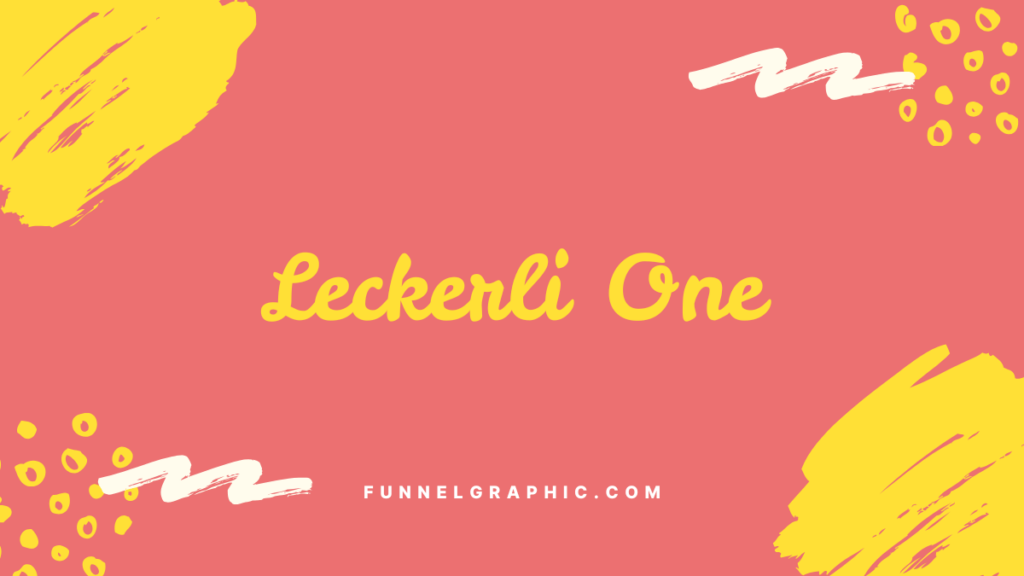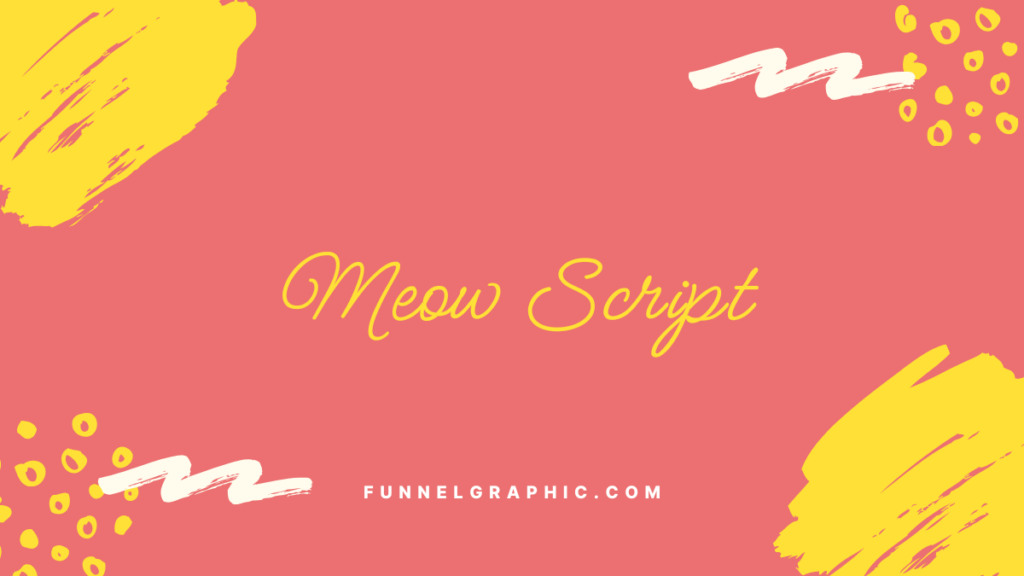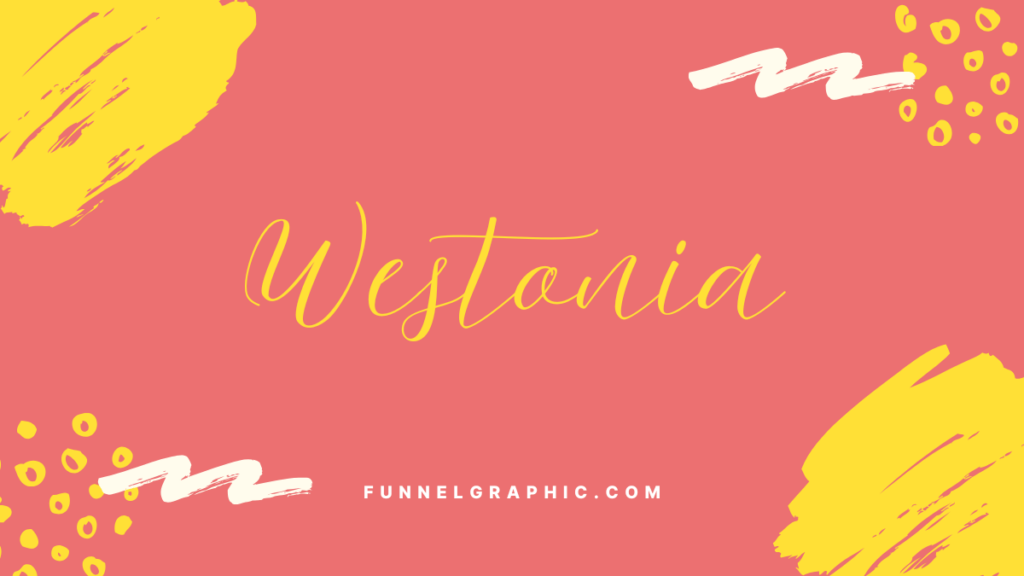
20 Alternative Disney Fonts On Canva For Free
Are you looking for the perfect Disney font on Canva? There aren’t any, but if you are subscribed to Canva Pro, you can download fonts that are similar to the Disney font and upload them to use on Canva.
There are two types so far, one is called “Waltograph” and the other is called “Walt Disney Script“.
You can also search and grab Disney-lookalike fonts, download them and upload custom fonts to Canva to use.
But if you prefer to stick with the free plan on Canva, stay with me, this guide gives you the best Disney-looking fonts you can find on Canva.
Canva Disney Font Alternatives
1. Adlery Swash
Adlery Swash - Diney font on canva
Adlery Swash dances on the page with its lively swashes and playful loops, reminiscent of the carefree joy found in Disney’s animated tales.
Its distinct flair adds a touch of personalized whimsy, perfect for projects aiming to convey fun and adventure.
2. Amsterdam One
Amsterdam One - Disney font on canva
Amsterdam One offers a more refined, yet equally whimsical approach, with elegant curves and a modern twist.
Its sophisticated style suits fairy tale wedding invitations or upscale event announcements, where a hint of magic is desired without sacrificing elegance.
3. Apricots
Apricots - Disney font on canva
Apricots bursts with a friendly and inviting character, its rounded edges and soft shapes evoke the warmth and charm of Disney’s beloved characters.
Ideal for children’s party invitations or playful branding, it brings a smile with its gentle demeanor.
4. Bellaboo
Bellaboo - Disney font on canva
Bellaboo, bold and straightforward, captures the essence of fun in a more modern and simplified manner.
Its thick lines and rounded forms are perfect for eye-catching headlines that need to convey energy and youthfulness, making it a great choice for casual, lively designs.
5. Better Together Script
Better Together Script - Disney font on canva
Better Together Script flows gracefully, reminiscent of the hand-written notes of a Disney princess.
Its delicate and fluid script embodies romance and dreams, perfect for storytelling, inspirational quotes, or any project that aims to touch the heart with soft elegance.
6. Bright Sunshine
Bright Sunshine - Disney font on canva
Bright Sunshine is like a cheerful greeting on a sunny day, its casual and lively script imbued with a sense of joy and optimism.
This font is perfect for designs that aim to be heartwarming and inviting, with a font that looks like handwriting that feels personal and uplifting.
7. Daydream
Daydream - Disney font on canva
Daydream captures the whimsy of a lazy afternoon, lost in fantasy. With its soft, flowing curves and dreamy elegance, it’s ideal for projects that require a touch of romance and whimsy.
This font is a gateway to stories untold, evoking the gentle allure of fairy tales and adventures waiting to be discovered.
8. Gistesy
Gistesy - Disney font on canva
Gistesy stands out with its quirky and fun character, embodying the unpredictable and spirited side of magic. It’s easy to find fonts to pair with Gistesy in Canva.
Its unique letterforms are perfect for projects that aim to be bold and stand out, making it a great choice for creative branding, playful invitations, or any design that dares to be different.
9. Imperfect
Imperfect - Disney font on canva
Imperfect celebrates the beauty of handcrafted artistry, with each stroke and curve revealing a human touch.
This font resonates with the authenticity and warmth of Disney’s classic animations, making it perfect for projects that seek to convey genuine emotion and a sense of nostalgia.
10. Jimmy Script
Jimmy Script - Disney font on canva
Jimmy Script brings together elegance and playfulness, its smooth script reminiscent of the carefree loops and swirls of a magic wand.
Ideal for projects that need a balance of sophistication and whimsy, Jimmy Script is suited for everything from enchanting event invitations to stylish branding.
11. Lavonia Classy
Lavonia Classy - Disney font on canva
Lavonia Classy exudes an elegance that’s both refined and enchanting. Its sophisticated curves and subtle swashes whisper tales of timeless fairy tales and grand adventures.
Perfect for projects that aim to blend classic charm with a hint of mystery, Lavonia Classy brings a touch of regal magic to invitations, branding, and more.
12. Leckerli One
Leckerli One - Disney font on canva
Leckerli One is a bouncy and sweet font. It mimics Disney’s iconic lettering with its rounded, playful curves.
This font feels like a joyful hand-drawn script—perfect for evoking childlike wonder in birthday invites, bakery logos, or anything that needs a sprinkle of magic (without the trademark).
13. Meow Script
Meow Script - Disney font on canva
Meow Script is elegant yet approachable. It offers flowing cursive swashes that channel Disney’s romantic charm.
Its balanced mix of sophistication and whimsy makes it ideal for invitations, fairy tale-themed designs, or projects craving a touch of timeless enchantment.
14. Mistrully
Mistrully - Disney font on canva
Mistrully embodies a playful mischief, with letterforms that dance with irregularity and charm. Its hand-drawn appearance captures the essence of whimsical tales and spirited characters.
Ideal for creative projects that seek to invoke curiosity and joy, Mistrully adds a personal, artisanal touch to storybooks, merchandise, and playful branding.
15. Moontime
Moontime - Disney font on canva
Moontime floats in with the dreamy allure of a moonlit night, its smooth script suggesting secrets whispered under a starry sky.
This font is perfect for narratives filled with romance, magic, and mystery, offering a delicate balance between readability and artistic flair.
Related: Moontime Font Pairing Ideas: 9 Free Canva Templates
Moontime lends itself beautifully to poetic quotes, romantic invitations, and any design aiming to stir the soul.
16. Themysion
Themysion - Disney font on canva
Themysion stands tall and proud, its bold and adventurous spirit reminiscent of epic journeys and heroic tales.
With sturdy letterforms that command attention, this font is a beacon for designs that aim to inspire, motivate, and captivate.
Themysion is especially suited for impactful headlines, motivational posters, and any project that calls for a dose of courage and wonder.
17. Twister
Twister - Disney font on canva
Twister whirls into the scene with a dynamic energy that’s both refreshing and exhilarating. Its letters twist and turn, evoking the feeling of movement and spontaneity.
Twister is the perfect choice for projects that aim to be lively and engaging, from dynamic marketing materials to vibrant children’s book titles, embodying the unpredictable joy of adventure.
18. Virtual
Virtual - Disney font on canva
Virtual emerges as a font of the future, blending sleek lines with a hint of whimsy, making it perfect for projects that straddle the realms of innovation and fantasy.
Its clean, digital-inspired appearance speaks to modern tales of adventure and discovery, ideal for tech-savvy creations, futuristic branding, and interactive storytelling that seeks to push the boundaries of imagination.
19. Westonia
Westonia - Disney font on canva
Westonia is bold and theatrical. It brings a retro fairytale vibe with its thick, uneven strokes and quirky personality.
A great choice for headlines, posters, or branding that demands playful drama, think storybook covers, carnival posters, or nostalgic nods to classic Disney adventures.
20. Yesteryear
Yesteryear - Disney font on canva
Yesteryear harks back to a bygone era with its nostalgic charm and elegant flow. This font embodies the timeless allure of classic Disney tales, weaving a sense of romance and history into every curve and swash.
Yesteryear is particularly suited for projects that aim to capture the heart’s longing for the golden days of yore, from vintage book covers to retro-themed event invitations.
Why Look for Alternatives?
The search for Disney font alternatives on Canva is primarily driven by copyright restrictions.
The Walt Disney Company holds the rights reserved for the custom font used in their logo, making it unavailable for direct download or use without proper licensing.
Hence, design platforms like Canva offer a variety of similar fonts that are free and legal to use, ensuring that creators can still capture the essence of Disney in their designs without infringing on copyright.
Exploring Canva Fonts Similar to Disney Font
On Canva, fonts that carry the same whimsical and adventurous spirit as the Disney font can be broadly categorized into serif and sans serif types.
While the original Disney logo features a unique script that’s neither strictly serif nor sans serif, the platform offers a range of fonts that can be used to evoke a similar feel.
Serif Fonts: These fonts are characterized by small lines attached to the ends of letters, providing a traditional and elegant feel.
For designs that aim to capture the classic aspect of Disney, such as “Star Wars” themes or fairy tale blog posts, a serif font can add a touch of sophistication.
Sans Serif Fonts: Known for their clean and modern look, sans serif fonts lack the small lines at the ends of letters.
These fonts are ideal for creating designs with a more contemporary twist on the Disney theme, suitable for web design projects or modern interpretations of classic Disney tales.
Leveraging Canva for Disney-Inspired Designs
Canva’s free version offers a wide array of fonts and design elements that can help bring your Disney-inspired projects to life.
Whether you’re a fan looking to create a personal project or a professional graphic designer working on client designs, Canva provides the tools and resources needed to create stunning visuals.
From menu designs for a themed party to invitations that whisk guests away to a fairy tale land, the right Canva font can transform your creative vision into reality.
Remember, while the exact Disney font might not be available, the essence of Disney’s storytelling magic can still be captured through the thoughtful selection of similar fonts and creative design elements on Canva.
Explore, experiment, and let your designs tell a story that’s as captivating as the tales of Walt Disney.